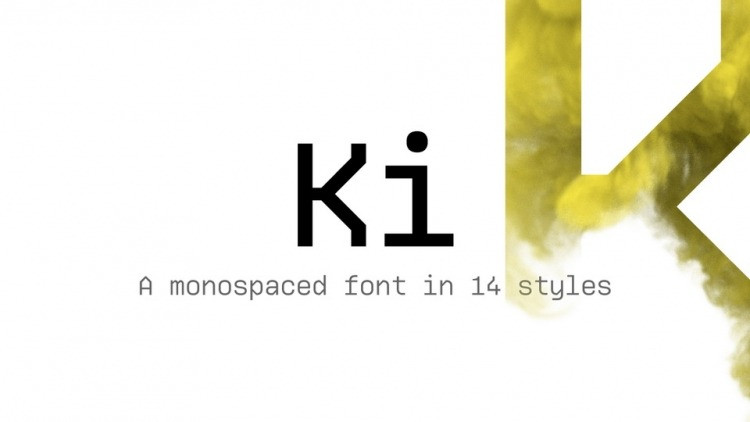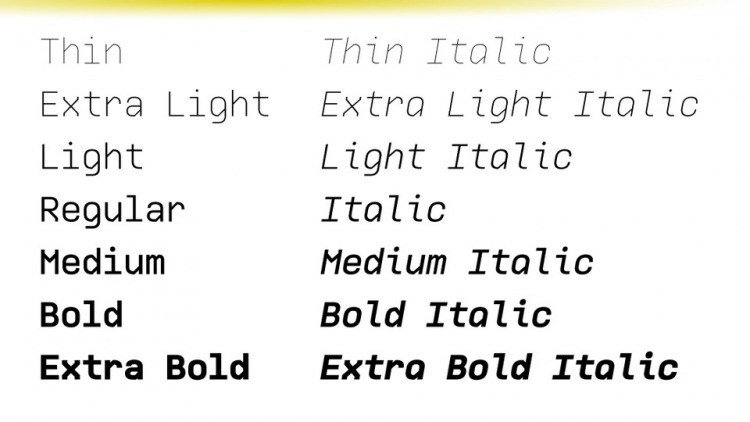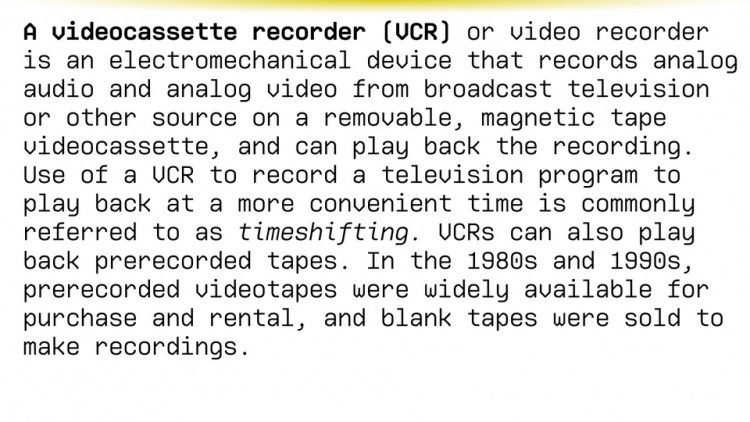
Ki Display Font
Ki is a monospaced display typeface inspired by older VCR / camcorder OSD (on-screen display) fonts. It is peculiar for its diagonal angles being restricted to 45°, which results in a specific textural effect perfectly legible in small type sizes.